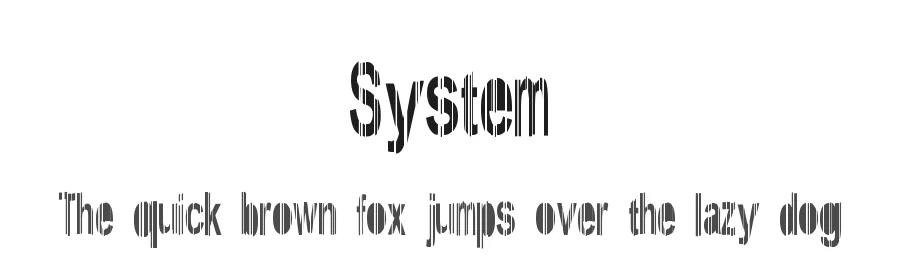
Press Feeling Eroded is a decorative font designed by Galdino Otten Fonts. It includes 236 glyphs, a regular weight, TTF (TrueType) format, and 208 languages. Press Feeling Eroded is free to download; check the license details on this page before commercial use. Decorative fonts like Press Feeling Eroded work best for logos, posters, packaging, and standout headlines.
Press Feeling Eroded Font is a decorative font that shines as a display or heading face. Pair it with a clean sans-serif or serif font for body text β the contrast creates a clear hierarchy while the two styles stay balanced and easy to read.
Press Feeling Eroded Font is a decorative typeface by Galdino Otten Fonts, ideal for logos, invitations, branding, and creative projects.